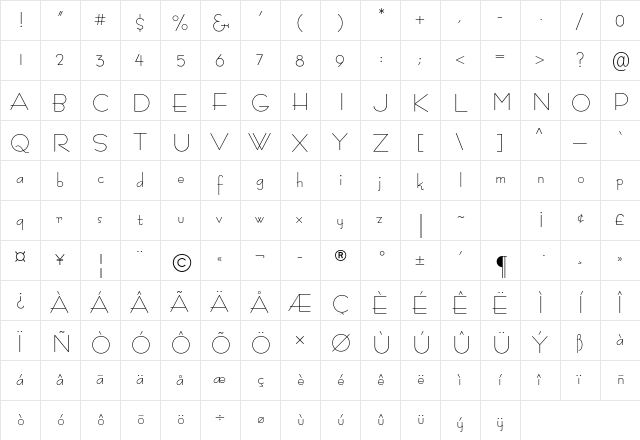
Bernhard Fashion Std Regular Font Preview
Bernhard Fashion Std Regular
Bernhard Fashion Std Regular Font Details
Design Context for Bernhard Fashion Std Typeface
Bernhard Fashion Std offers clean, dependable letterforms without strong stylistic allegiance, making it a practical choice for designers who need flexibility.
Pro Tip: Use Bernhard Fashion Std in both headline and body roles to test its range before committing to a single application.